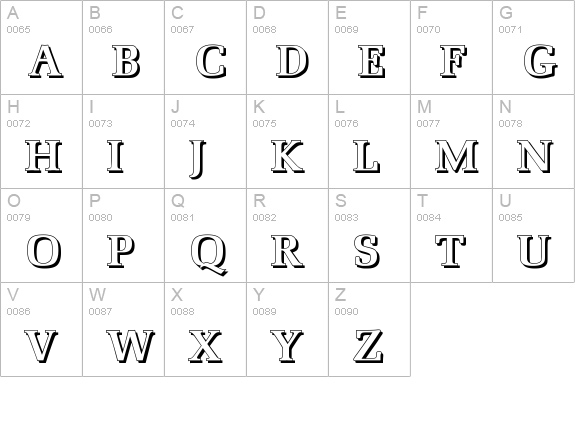
MarseilleShadow-Bold is a strong, high-contrast variant in the MarseilleShadow typeface family \xE2\x80\x94 well suited to headlines, attention-grabbing titles, and strong calls-to-action.
MarseilleShadow-Bold is a striking and bold font that exudes strength and confidence. Its sharp lines and dramatic shadows make it perfect for creating eye-catching designs that demand attention. Whether used for headlines, logos, or posters, MarseilleShadow-Bold makes a powerful statement. The font is freely available to download at FontsMarket.com, where you can easily access this versatile typeface for your creative projects. With its unique style and impactful presence, MarseilleShadow-Bold is sure to make a lasting impression on your audience. Elevate your designs with this dynamic and modern font today.